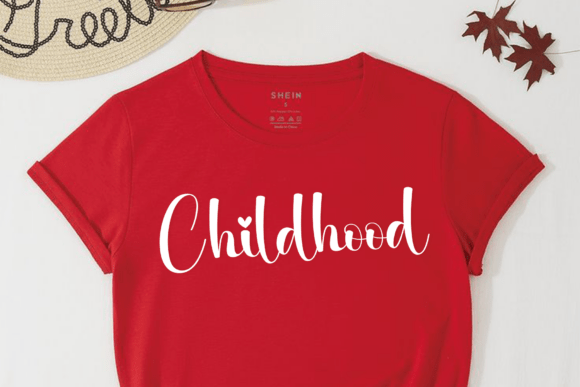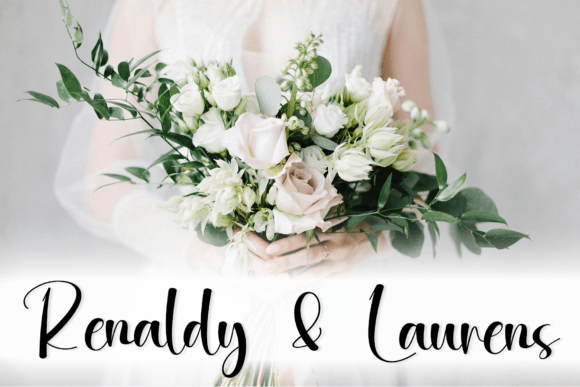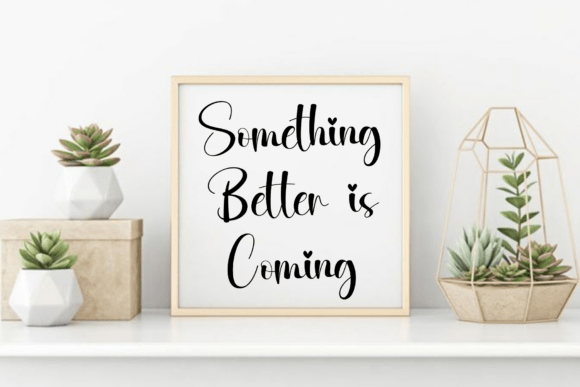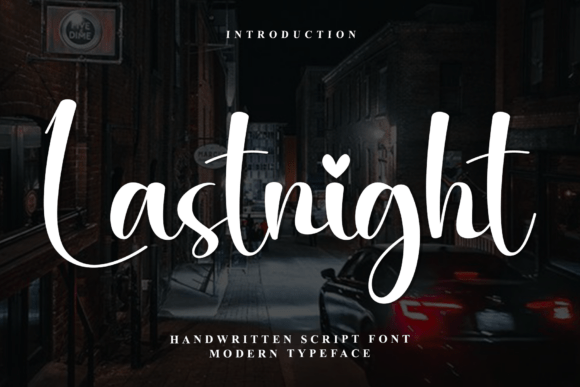
Introduction to Lastnight Font
Lastnight is a stunningly elegant and highly refined modern handwritten script font that embodies professional artistry, delivering a luxurious and personalized touch ideal for high-end branding.
This exquisite typeface is characterized by its dramatic contrast between thick downstrokes and delicate hairlines, along with beautifully integrated ligatures and swashes that enhance its sophistication It conveys the unique and professional quality of a skilled calligrapher.